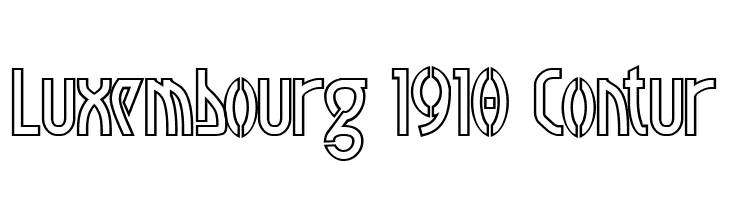
A bold, geometric font with art deco influences and angular letterforms.
A modern, geometric font with bold, angular characters and a futuristic style.
A decorative, outline font with a bold, geometric style.
A geometric, outline font with a modern and futuristic style.